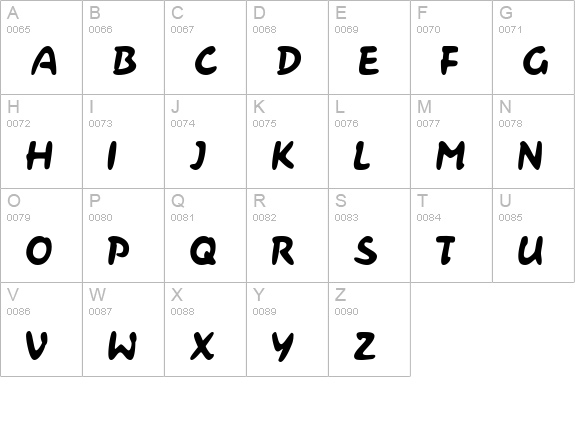
Casual Contact MF font is a charming and versatile typeface that exudes a laid-back and friendly vibe. With its casual yet stylish appearance, this font is perfect for adding a touch of personality to your designs. Whether you're working on a project that requires a relaxed and approachable feel or you simply want to inject some whimsy into your text, Casual Contact MF font is the ideal choice. This unique font features a mix of rounded and flowing letterforms that give it a playful and inviting look. Its smooth curves and gentle lines make it easy to read while still retaining a sense of informality. Casual Contact MF font is a great option for a variety of design projects, from social media graphics to invitations to branding materials. Best of all, Casual Contact MF font is available for free download at FontsMarket.com. You can easily access this delightful font and start using it in your projects right away. Don't miss out on the opportunity to add a touch of casual charm to your designs with Casual Contact MF font.